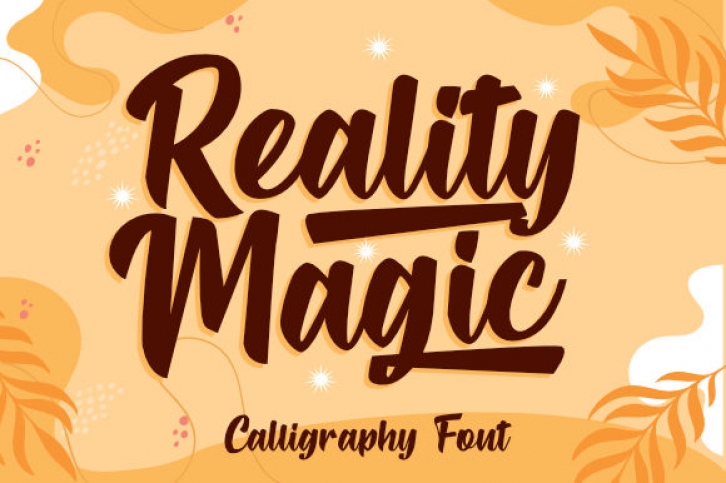
Reality Magic is a gorgeous and bold handwritten font, crafted to give your headlines and logotype projects a stylish touch. This font reads as strong, confident, and dynamic and can add tons of nostalgic character to your designs.